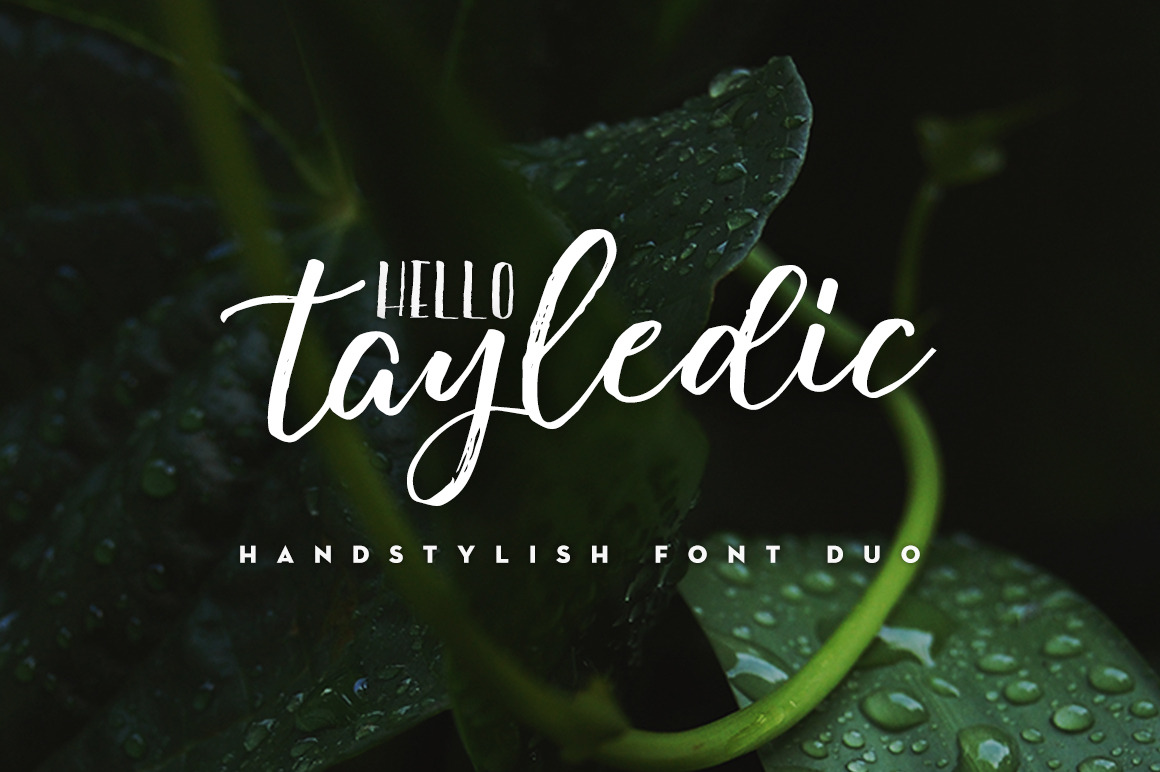
Say hello for Tayledic Handstylish Font! Best match for logos, invites, titles, prints & other creative process possibilities.
Create a extraordinary handstylish results by using Tayledic Handstylish Font!